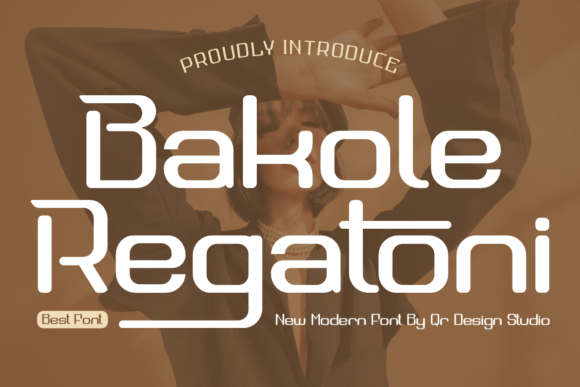
Bakole Regatoni Font: A Bold and Authentic Display Font for Your Branding Needs
In the world of typography, fonts play a crucial role in conveying the tone and personality of a brand. With thousands of fonts available, choosing the right one can be overwhelming, especially when you’re looking for something unique and attention-grabbing. This is where Bakole Regatoni Font comes in – a bold and authentic display font that’s perfect for any branding project.
What is Bakole Regatoni Font?
Bakole Regatoni Font is a display font designed to make a statement. Its bold and authentic style makes it suitable for a wide range of applications, from logos and weddings to fashion, flyers, social media, and more. This font is perfect for designers who want to add a touch of elegance and sophistication to their designs.
Key Features of Bakole Regatoni Font
- Bold and Authentic Style: Bakole Regatoni Font boasts a bold and authentic style that’s sure to grab attention.
- Versatile: This font is suitable for various branding projects, including logos, weddings, fashion, flyers, social media, and more.
- Elegant and Sophisticated: The font’s elegant and sophisticated design makes it perfect for designers who want to add a touch of luxury to their designs.
- Easy to Read: Despite its bold style, Bakole Regatoni Font is easy to read, making it perfect for headlines, titles, and short paragraphs.
Usage Ideas for Bakole Regatoni Font
Bakole Regatoni Font is a versatile font that can be used in various design projects. Here are some ideas to get you started:
- Logo Design: Use Bakole Regatoni Font to create a bold and memorable logo for your brand.
- Wedding Design: Add a touch of elegance to your wedding designs, including invitations, programs, and decorations.
- Fashion Branding: Use Bakole Regatoni Font to create stunning fashion branding, including labels, packaging, and advertisements.
- Flyers and Brochures: Make your flyers and brochures stand out with Bakole Regatoni Font.
- Social Media Graphics: Use Bakole Regatoni Font to create eye-catching social media graphics, including Facebook posts, Instagram stories, and Twitter headers.
Benefits of Using Bakole Regatoni Font
Using Bakole Regatoni Font can bring numerous benefits to your design projects. Here are some of the advantages of using this font:
- Unique and Attention-Grabbing: Bakole Regatoni Font is a unique and attention-grabbing font that can help your designs stand out.
- Elegant and Sophisticated: The font’s elegant and sophisticated design can add a touch of luxury to your designs.
- Versatile: Bakole Regatoni Font is a versatile font that can be used in various design projects.
- Easy to Read: The font is easy to read, making it perfect for headlines, titles, and short paragraphs.
Tips for Using Bakole Regatoni Font
Here are some tips for using Bakole Regatoni Font effectively:
- Use it for Headlines and Titles: Bakole Regatoni Font is perfect for headlines and titles. Use it to grab attention and add a touch of elegance to your designs.
- Pair it with Other Fonts: Experiment with pairing Bakole Regatoni Font with other fonts to create a unique and visually appealing design.
- Adjust the Size and Color: Adjust the size and color of Bakole Regatoni Font to suit your design needs.
- Use it for Branding: Use Bakole Regatoni Font for branding projects, including logos, labels, and packaging.
In conclusion, Bakole Regatoni Font is a bold and authentic display font that’s perfect for any branding project. Its elegant and sophisticated design makes it suitable for a wide range of applications, from logos and weddings to fashion, flyers, social media, and more. With its versatility, ease of use, and attention-grabbing style, Bakole Regatoni Font is a great addition to any designer’s font collection.
Final Thoughts
If you’re looking for a font that can add a touch of elegance and sophistication to your designs, Bakole Regatoni Font is an excellent choice. Its bold and authentic style, versatility, and ease of use make it a great font for designers who want to create stunning designs that stand out. So why not give Bakole Regatoni Font a try and see how it can elevate your designs?